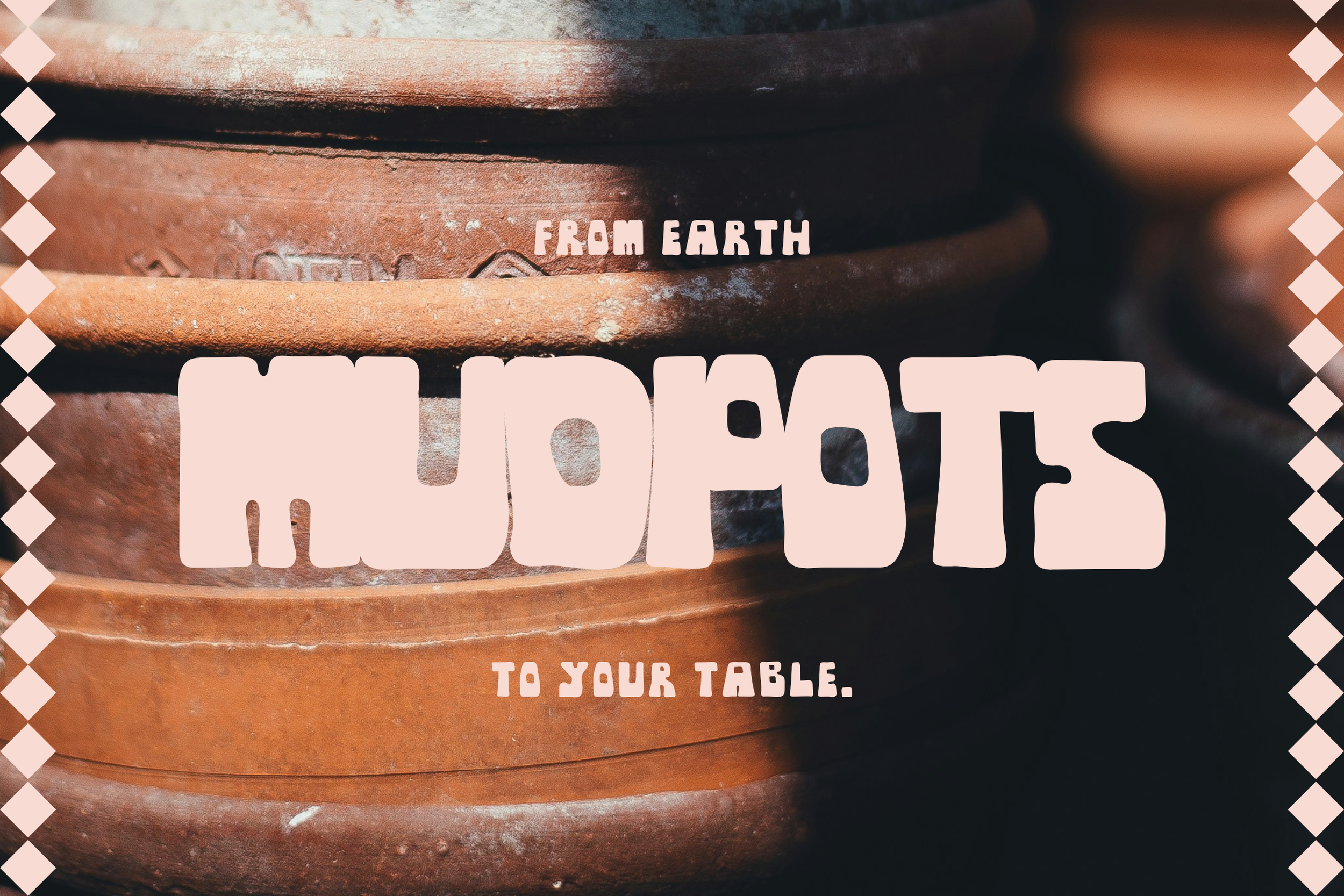
MUD HOUSE
MUD HOUSE is an all caps, bottom heavy display-font taking inspiration from the way a big piece of clay sits weighted down on the clay table. The font also looks to adobe mud houses, natural rock formations, clay and organic forms in nature.
Initially crafted by hand for a potter working with clay, this all caps display font serves as an extension of their hand-drawn logo. MUD HOUSE is the perfect display font to infuse a santa-fe feeling into any design project.
Includes A-Z (uppercase, some with alternates), 0-9 number and basic punctuation.